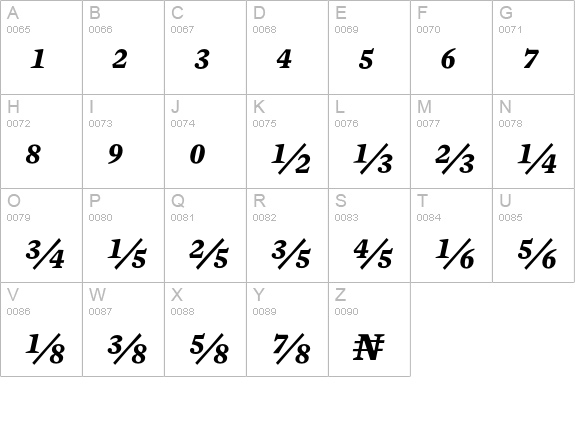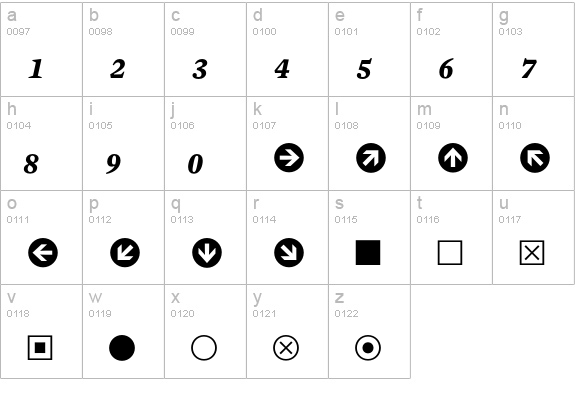
Mercury Numeric G1 Bold Italic Font Details
Mercury Numeric G1 Bold Italic is a strong, high-contrast, italic variant in the Mercury typeface family \xE2\x80\x94 well suited to headlines, attention-grabbing titles, and strong calls-to-action.
Mercury Numeric G1 Bold Italic font is a modern and sleek typeface that exudes confidence and sophistication. Its bold and italicized design adds a touch of flair to any project, making it perfect for headlines, titles, and branding materials. The font strikes the perfect balance between professionalism and creativity, making it a versatile choice for a wide range of design projects. What makes Mercury Numeric G1 Bold Italic font even more appealing is that it is available for free download at FontsMarket.com. This means that you can access this high-quality font without any cost, making it a valuable asset for designers, creatives, and anyone looking to enhance their projects with a stylish and eye-catching typeface. Add a touch of elegance and modernity to your designs with Mercury Numeric G1 Bold Italic font, now freely available for download at FontsMarket.com.